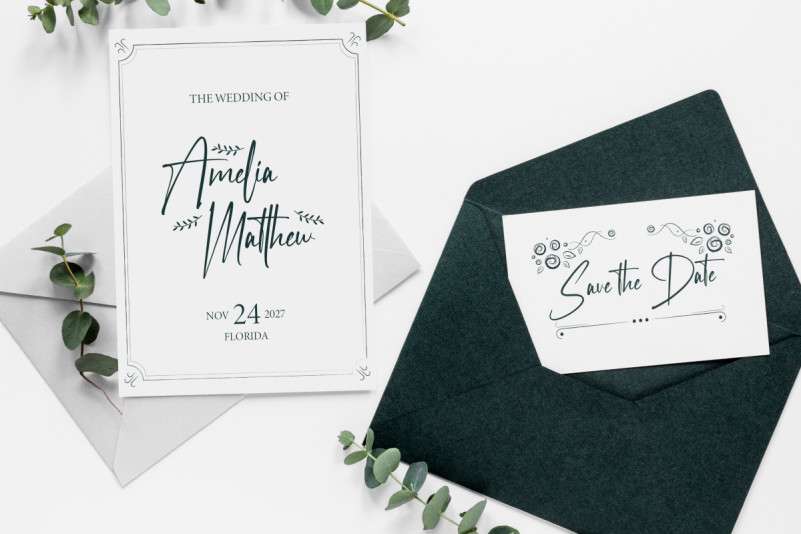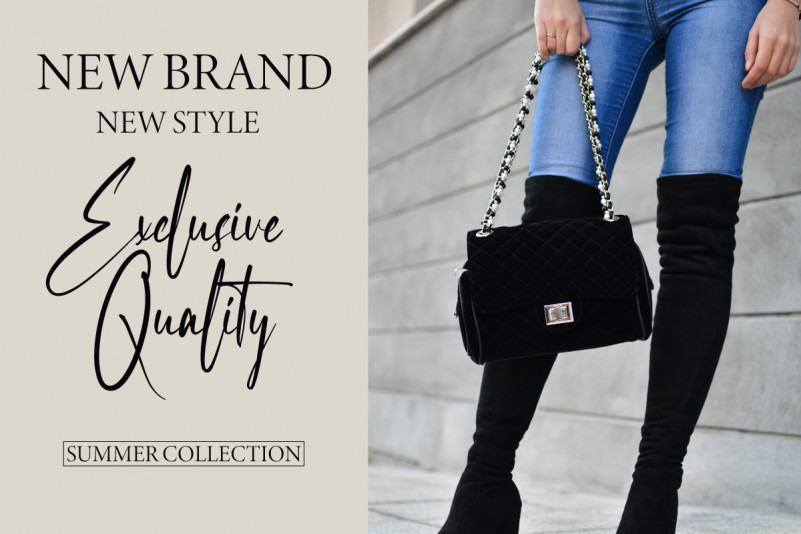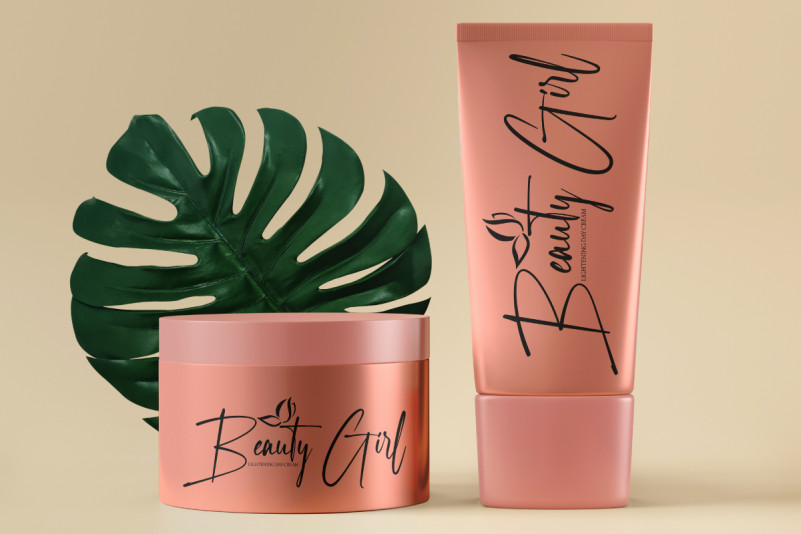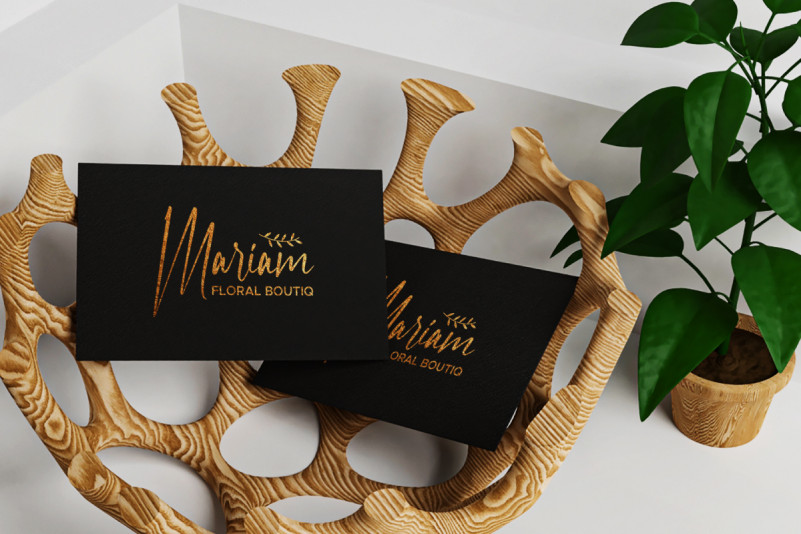
Chalmette Script Font
This will be great for any of your special projects including : weddings, promotion, events, branding, advertising, magazine, shopping, signage, invitation, stationery, social media posts, product packaging, product designs, label, photography, watermark or and any projects that need handwriting style.
Chalmette Script Font includes full set of gorgeous uppercase and lowercase letters, numerals, a large range of punctuation and ligatures. We made Chalmette looks simple yet stunning handwritten looks, giving realistic hand-lettered style.